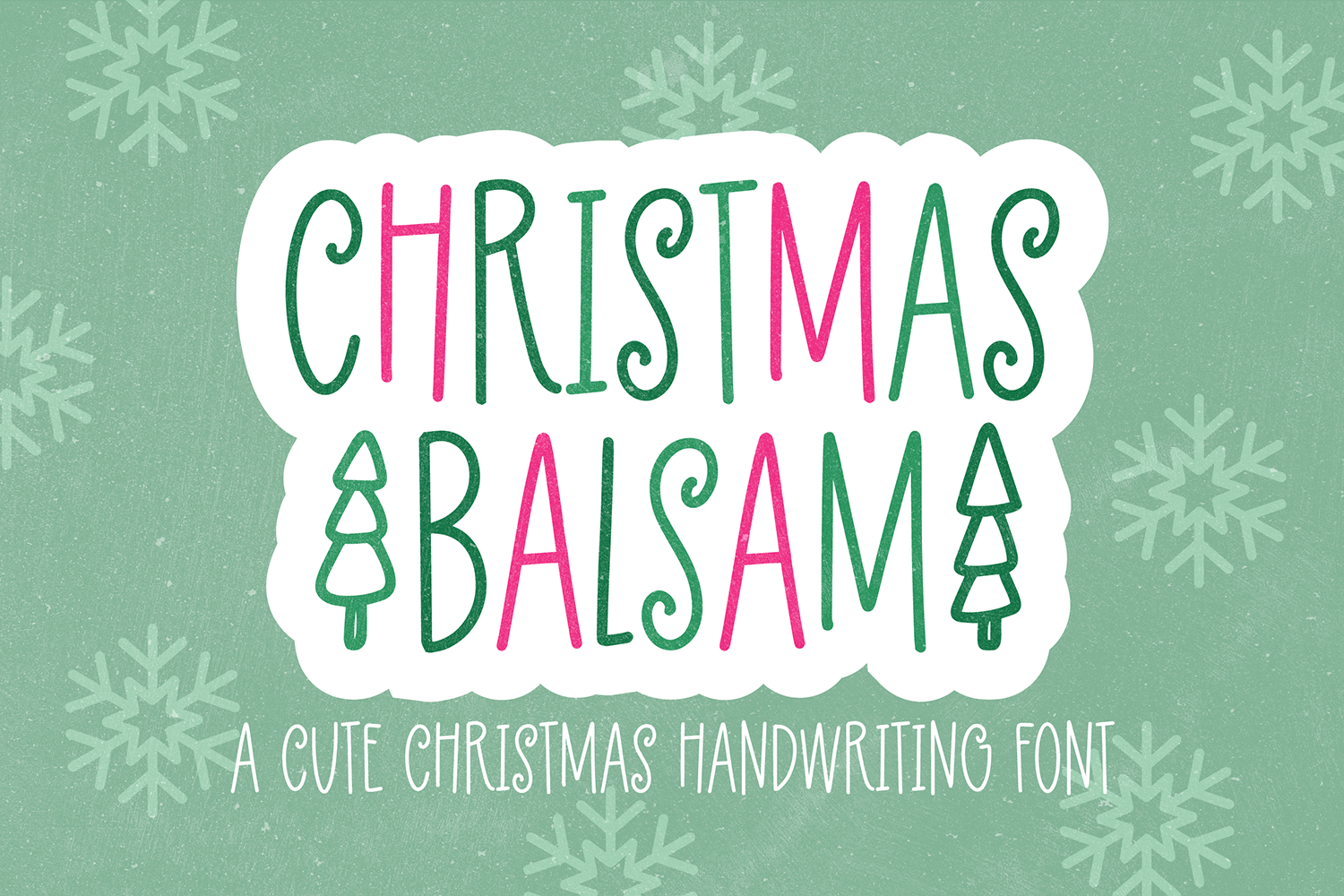
"Christmas Balsam" a handlettered Christmas font
Christmas Balsam is perfect for your holiday projects. Use it for Christmas cards, winter crafts for decor and more! This font includes intl characters! Find the trees by using the < > keys, and sparkles with { } keys.